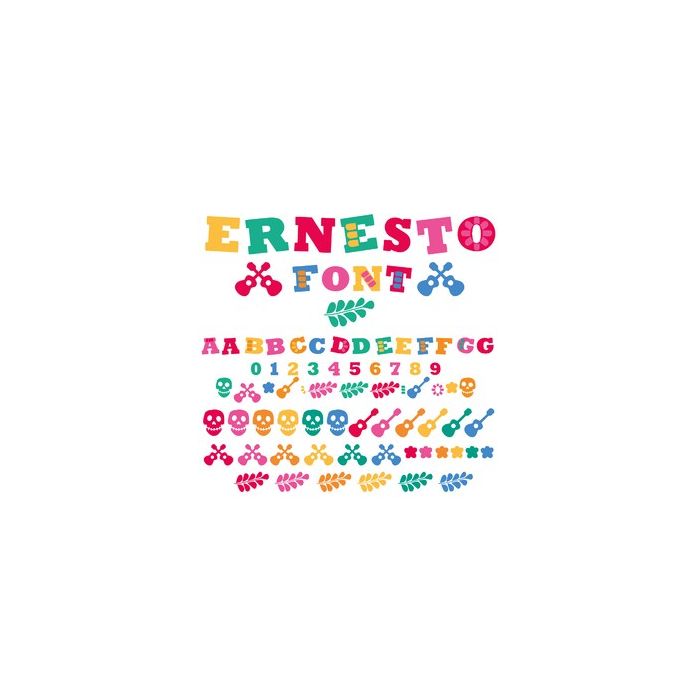
Ernesto Colorful Fun Retro Font With Dingbats and Decorative uppercase Letters. Characters are allocated to upper and lowercase keys and available via the character map / glyphs panel.